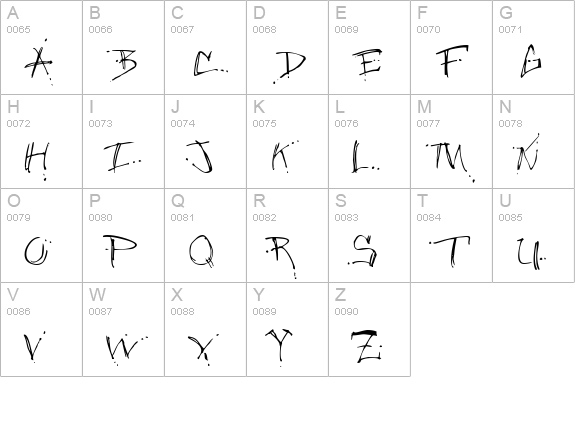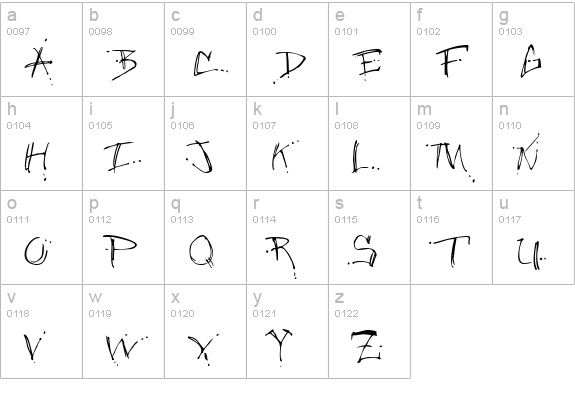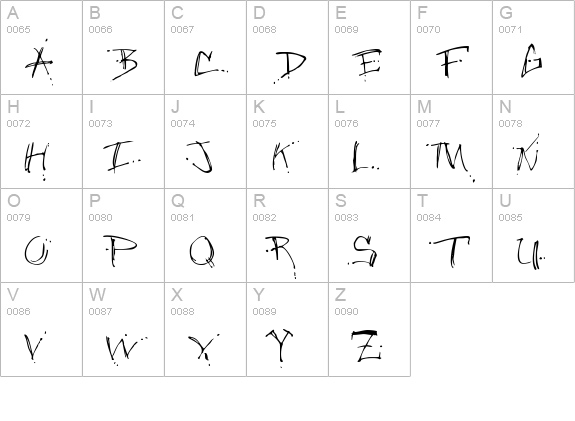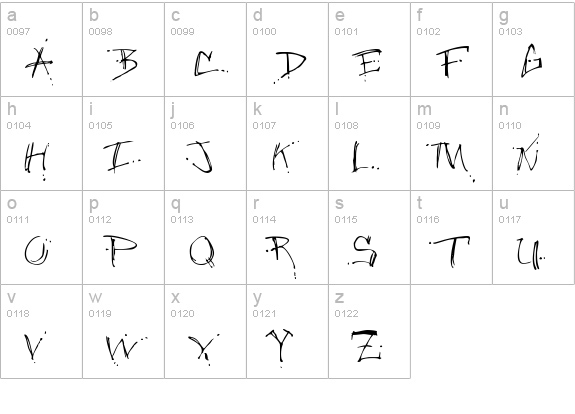
Jungle Ruff font is a bold and vibrant typeface that perfectly captures the untamed spirit of the jungle. Its rugged edges and intricate details give it a wild and adventurous feel, making it ideal for projects that require a touch of exotic flair. Whether you're designing a poster for a jungle-themed event or creating a logo for an outdoor adventure brand, Jungle Ruff font is sure to make a lasting impression. Best of all, Jungle Ruff font is completely free to download at FontsMarket.com. This means you can add this unique and eye-catching font to your design arsenal without spending a dime. So go ahead and unleash your creativity with Jungle Ruff font today!